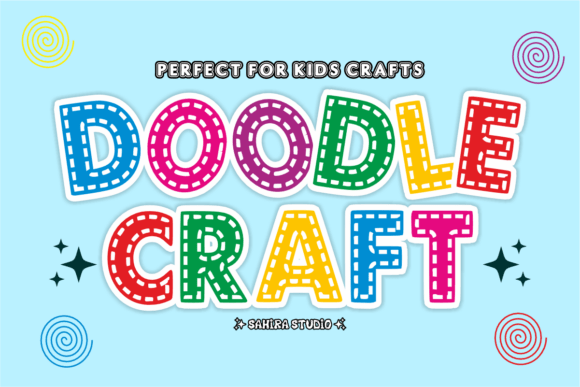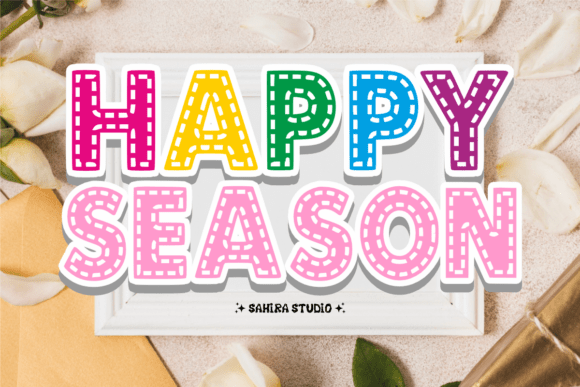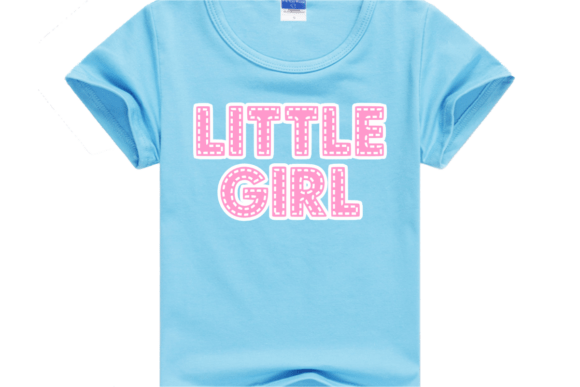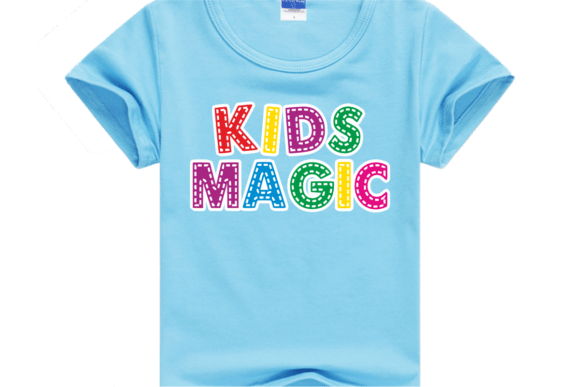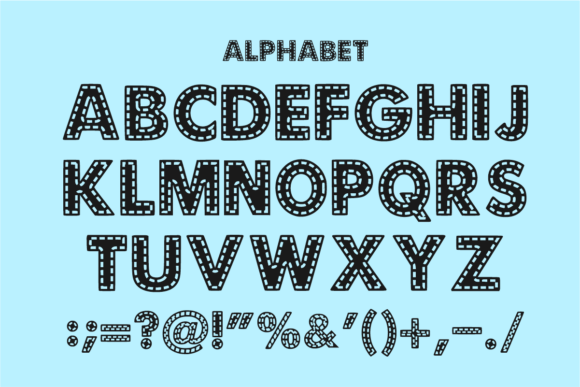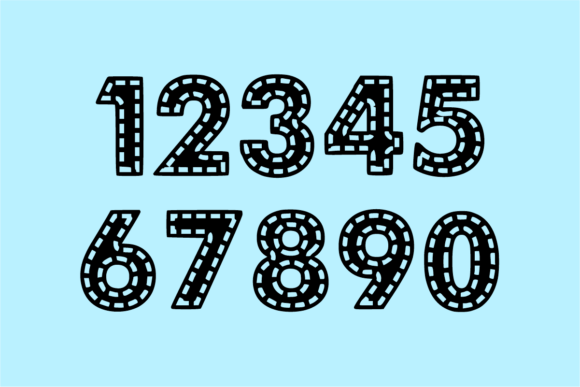
Introduction to Dotted Lines Font
Dotted Lines is a cheerful and modern children’s cartoon font consisting of only uppercase letters.
Each character is cute and unique with dots, making it easy to recognize The uppercase characters are crafted with thick, rounded shapes and inner paths made of perfectly spaced dashes, giving them a stitched or sewn appearance.